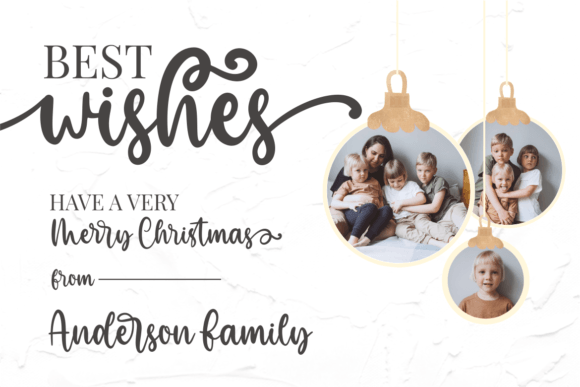
About Clayaris Font
Clayaris is a stylish and gorgeous script font, defined by simplicity and elegance. Whether you’re looking for fonts for Instagram or calligraphy scripts for DIY projects, this font will turn any creative idea into a true piece of art!